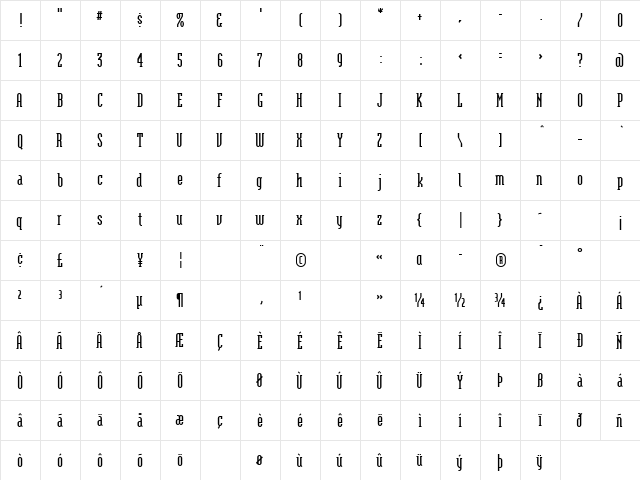
ModulaSerifBold Bold Font Preview
ModulaSerifBold Bold
Design Context for ModulaSerifBold Typeface
ModulaSerifBold carries the refined structure of traditional serif typography, with bracketed terminals and considered proportions that communicate credibility and craft. Its bold stroke weight gives it real presence on the page.